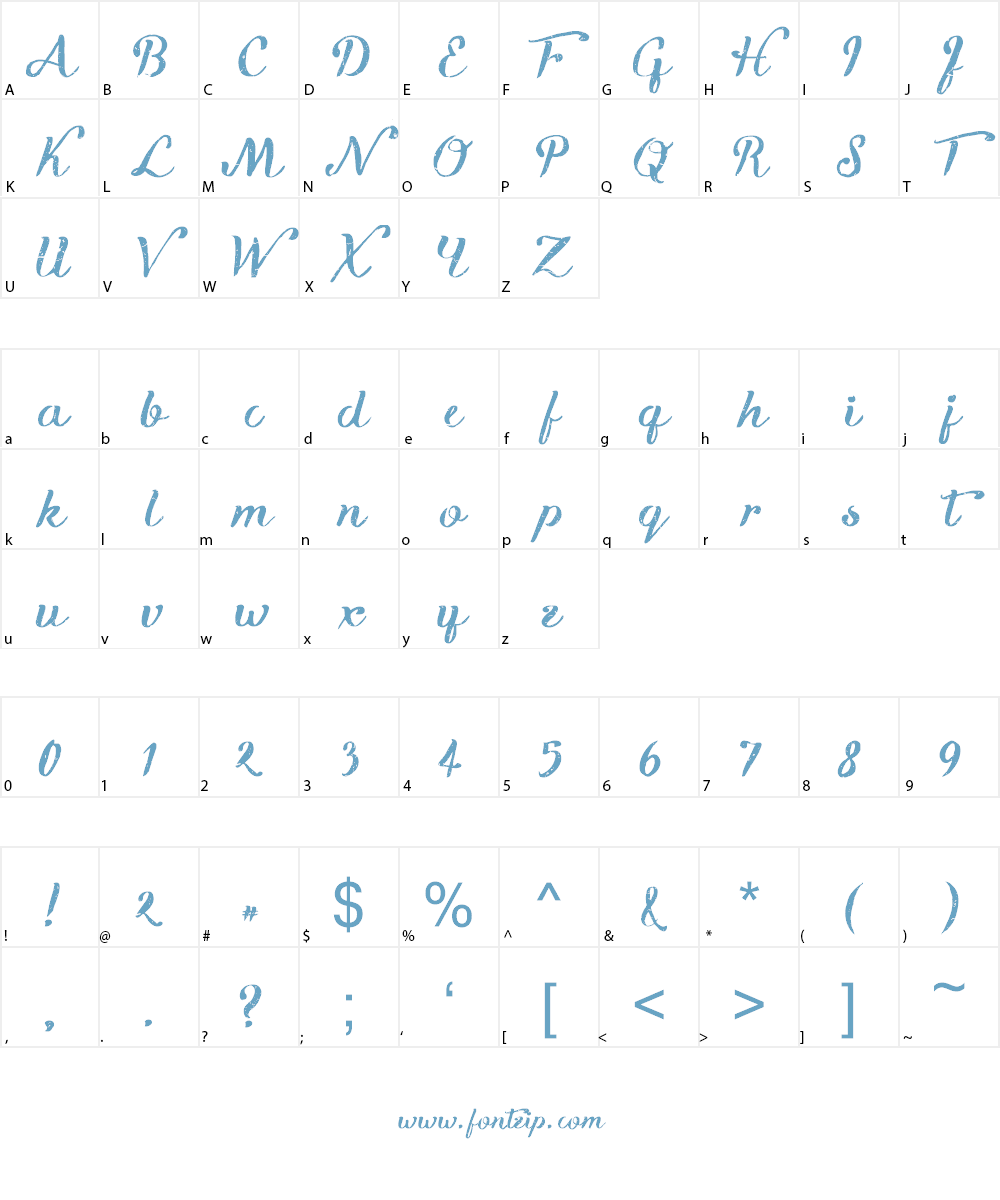
KIKELET BRUSH is the brush pen sketch version of a spring-inspired new script font I am currently working on. "Kikelet" it means Spring in Hungarian.